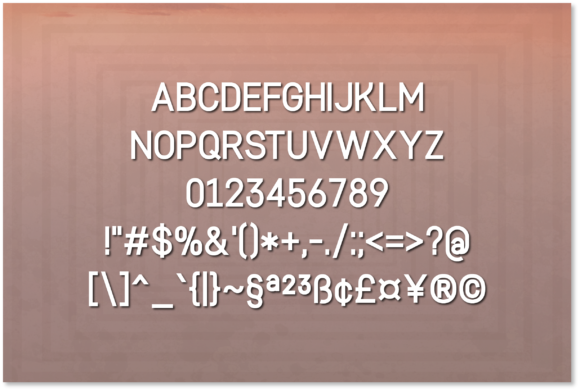
Discover the Elegance of Clarsly Black Font: A Modern Sans Serif for Every Design Need
In the world of typography, fonts play a crucial role in conveying messages, setting tones, and creating visual impacts. Among the myriad of fonts available, the Clarsly Black Font stands out for its minimalist, modern, and elegant appeal. This versatile sans serif font is designed to cater to a wide range of design applications, from body text to headlines, ensuring that your next project is not only visually appealing but also timeless.
The Essence of Clarsly Black Font
Clarsly Black Font embodies the perfect blend of simplicity and sophistication. Its sans serif design gives it a clean and contemporary look, making it highly legible across various platforms and sizes. Whether you’re working on a digital project or a print material, Clarsly Black ensures that your message is delivered with clarity and style.
One of the key features of Clarsly Black Font is its versatility. It’s a font that can seamlessly transition from being a subtle element in your body text to a striking headline. This adaptability makes it an ideal choice for designers and crafters who work on a variety of projects, including:
- Digital Media: For websites, blogs, and social media posts, Clarsly Black Font can help in creating a consistent and professional look.
- Print Materials: From brochures and flyers to posters and business cards, this font adds a touch of elegance and modernity.
- Branding: For logos and brand identities, Clarsly Black offers a clean and memorable appearance that can help in building a strong brand presence.
Why Choose Clarsly Black Font?
There are several reasons why designers and crafters are gravitating towards Clarsly Black Font:
- Legibility: Its clear and simple design ensures that your text is easy to read, making it perfect for both digital and print media.
- Elegance: Despite its simplicity, Clarsly Black Font carries an air of elegance that can elevate the aesthetic of your designs.
- Timelessness: The minimalist design of Clarsly Black ensures that your designs won’t look dated anytime soon, providing a timeless appeal.
- Versatility: As mentioned, its adaptability across various design applications makes it a valuable addition to any designer’s toolkit.
How to Use Clarsly Black Font Effectively
To make the most out of Clarsly Black Font, consider the following tips:
- Mix and Match: Don’t be afraid to use Clarsly Black Font in combination with other fonts. Its simplicity makes it a great base that can complement more decorative fonts.
- Play with Sizes: Utilize the font’s versatility by varying the sizes. Use larger sizes for headlines to grab attention and smaller sizes for body text to maintain readability.
- Experiment with Colors: While Clarsly Black Font looks great in black, don’t hesitate to experiment with different colors that align with your brand’s palette or the mood of your design.
Clarsly Black Font is more than just a typeface; it’s a design statement. Its minimalist, modern, and elegant design makes it a versatile tool for any designer or crafter looking to add a touch of sophistication and timelessness to their work. Whether you’re working on digital media, print materials, or branding projects, Clarsly Black Font is sure to meet your design needs with style and clarity. Embrace the elegance of Clarsly Black Font in your next project and experience the difference it can make.